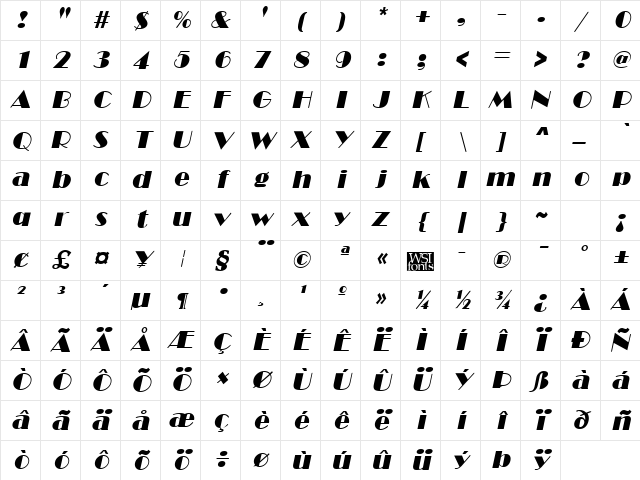
Marquee kursiv
Style: kursiv
Marquee Family
Marquee kursiv
Design Context for Marquee
Marquee is a composed and adaptable typeface that performs quietly and consistently across a wide range of design contexts. The slanted form adds forward momentum and visual energy.